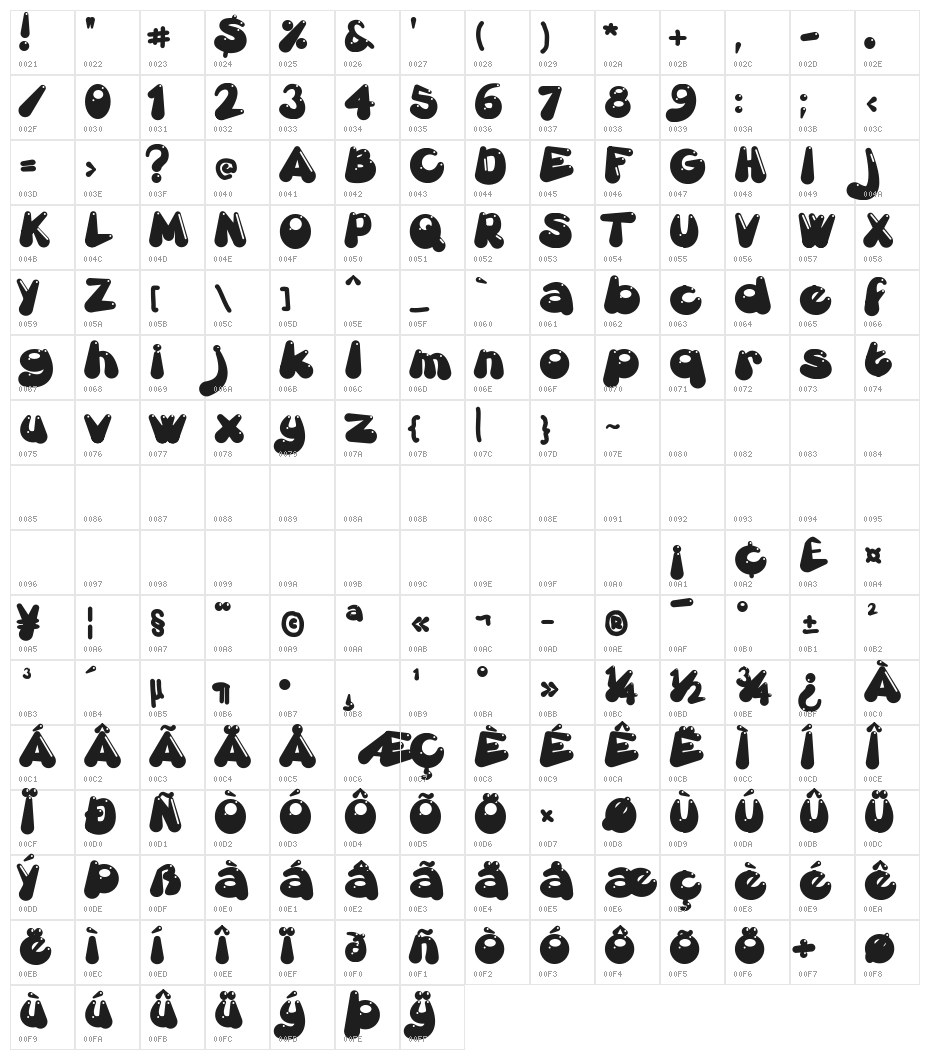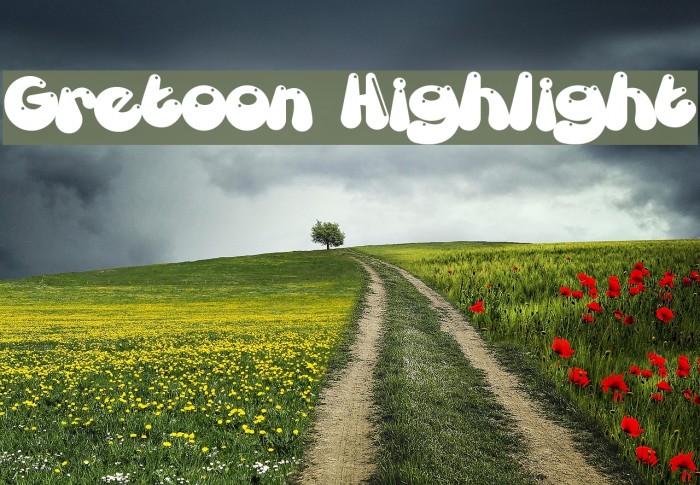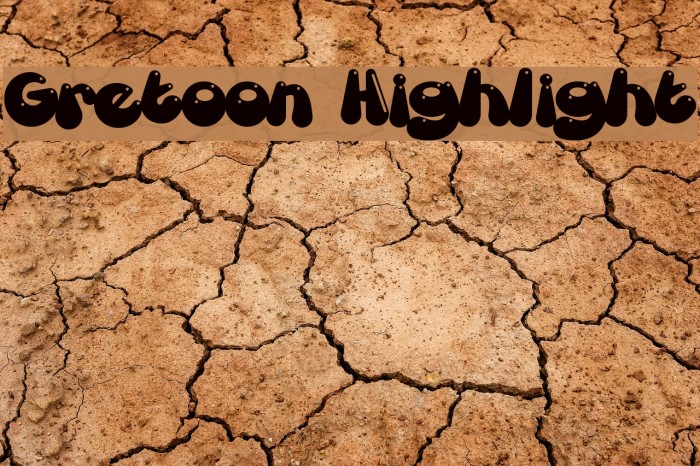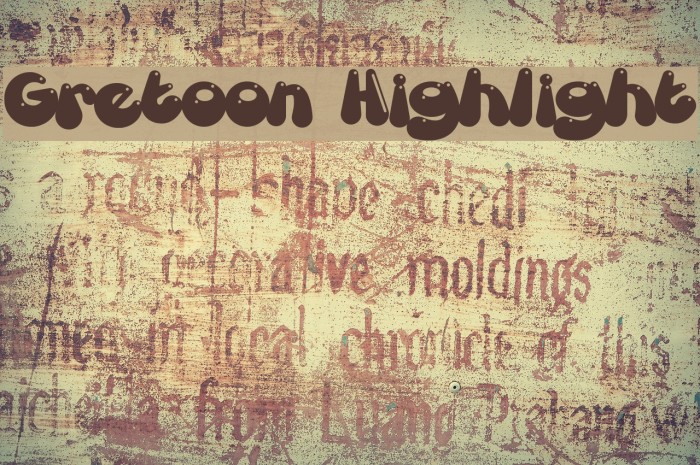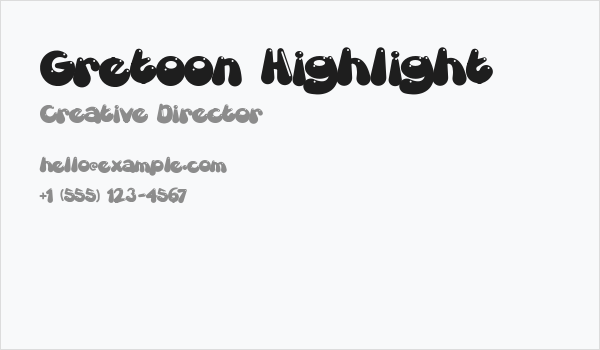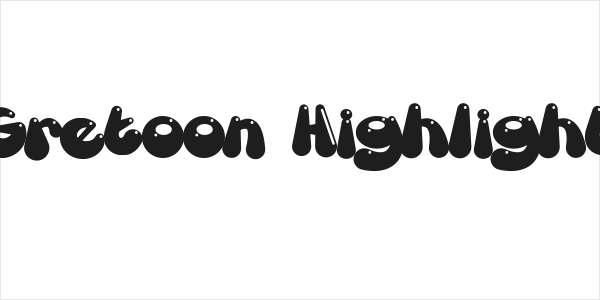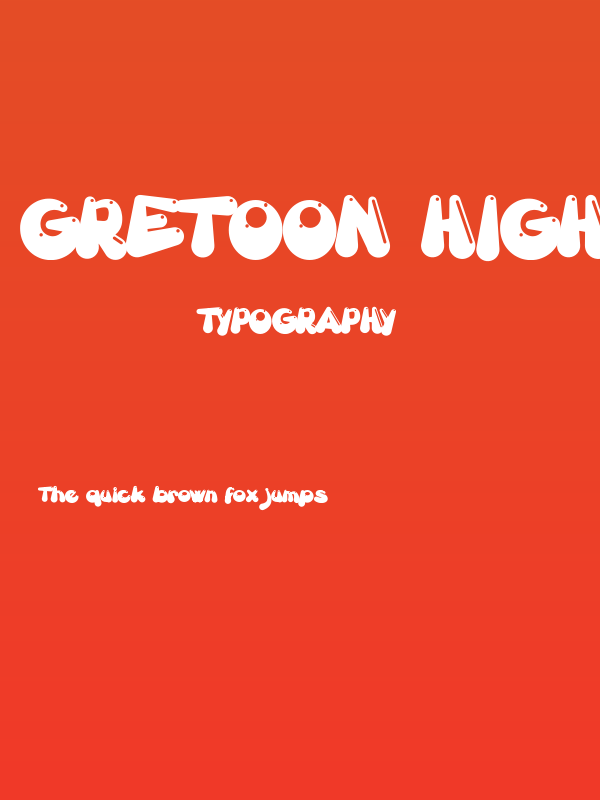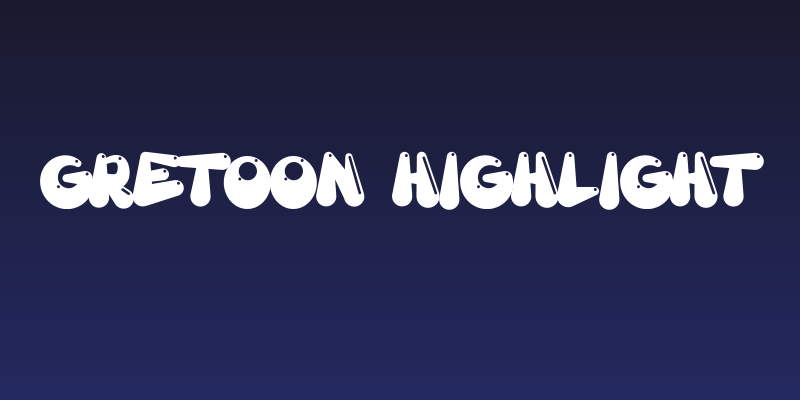
Gretoon Highlight Font
Gretoon Highlight Description
This playful and bold font features a cartoonish style with thick, rounded characters that convey a sense of fun and whimsy. Each letter is designed with a bold stroke and a slight shadow effect, adding depth and a three-dimensional appearance. The font includes both uppercase and lowercase letters, numerals, and a variety of special characters. Its exaggerated curves and bubbly form make it ideal for projects that require a lively and energetic vibe. The font's unique style is perfect for children's books, comic strips, or any creative project that aims to capture attention with a sense of humor and lightheartedness.
| Overall Style | Playful, Cartoonish |
| Proposed Projects | Ideal for children's books, comic strips, playful branding, and creative posters. |